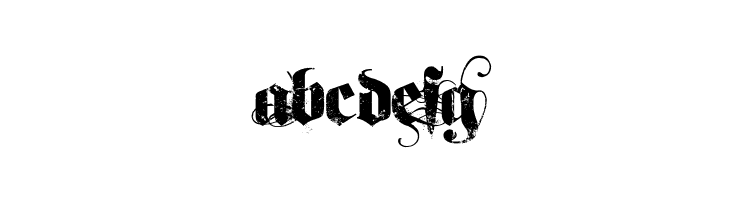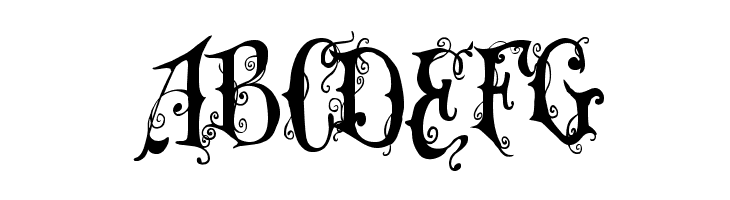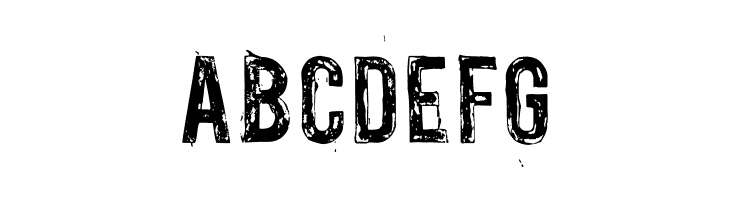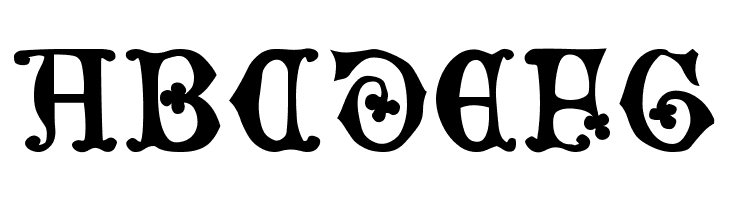
A bold, gothic Blackletter font with intricate detailing and a medieval aesthetic.
( Fonts by Ryoichi Tsunekawa - www.dharmatype.com )
A bold, distressed font with a grunge, vintage style.
( Fonts by Mr Fisk - Mike Larsson - fontorama.net )
A distressed, grunge-style font with bold, rugged characters.
( Fonts by Omega Font Labs )
A bold, distressed font with a scratched, edgy appearance.
( Fonts by Klaus Johansen - www.listemageren.dK )
A playful font using domino tiles to form characters, with a bold and dynamic style.
A playful font with letters on skateboards, perfect for youthful and energetic designs.
( Fonts by Nate Piekos - www.blambot.com )
A playful, hand-drawn font with an ancient Egyptian flair.
A decorative font with Celtic-inspired interwoven patterns and bold, ornate letters.
( Fonts by Rich Gast - www.greywolfwebworks.com OFF SITE )
A decorative font styled with interconnected chain links for a bold, industrial look.
( Fonts by Abstract Type Design - Patrick Durr )
A bold, decorative font with Celtic influences and angular serifs.
A gothic and grunge font with ornate flourishes and distressed textures.
A bold, grunge-style font with a distressed texture and dynamic appearance.
( Fonts by www.floodfonts.com )
A bold, decorative font with a pirate-themed, adventurous style.
( Fonts by www.floodfonts.com )
A bold, adventurous font with a rugged, hand-drawn appearance.
An ornate and decorative font with gothic-inspired swirls and embellishments.